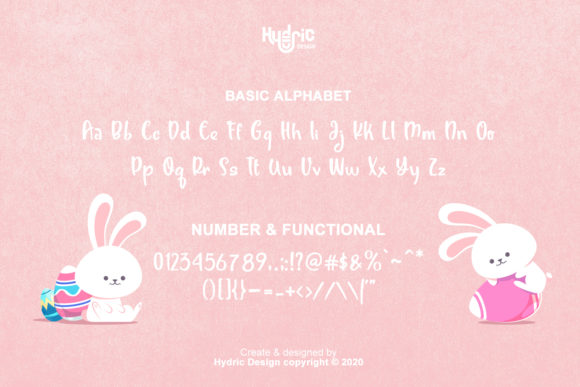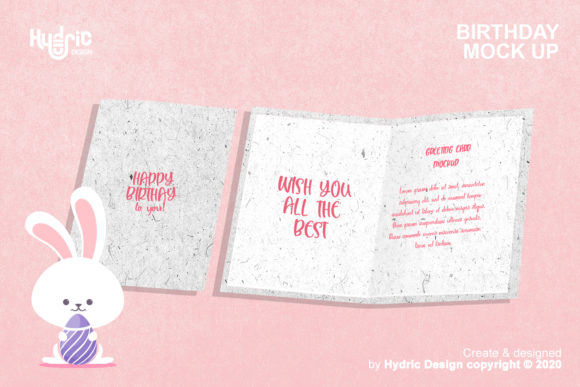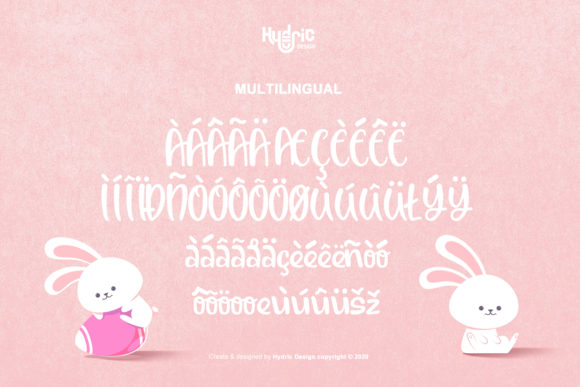
Bum Bum Bunny Font: The Sweet and Flowing Handwritten Font for Creative Projects
Are you a designer, crafter, or DIY enthusiast looking for a font that can add a touch of sweetness and elegance to your creative projects? Look no further than the Bum Bum Bunny font! This beautiful, handwritten font is perfect for a variety of applications, from Instagram posts and stories to calligraphy scripts and DIY projects. In this article, we’ll take a closer look at the Bum Bum Bunny font, its features, and how you can use it to turn your creative ideas into true pieces of art.
What is Bum Bum Bunny Font?
Bum Bum Bunny is a sweet and flowing handwritten font that is designed to add a touch of whimsy and charm to your creative projects. Its flowing lines and delicate curves make it perfect for a variety of applications, from romantic and feminine designs to playful and creative ones. Whether you’re looking for a font for your Instagram posts, a calligraphy script for your DIY projects, or a font for your branding and marketing materials, Bum Bum Bunny is an excellent choice.
Features of Bum Bum Bunny Font
The Bum Bum Bunny font has several features that make it an excellent choice for designers and crafters. Some of its key features include:
- Sweet and flowing design: The Bum Bum Bunny font has a sweet and flowing design that is perfect for creating beautiful and elegant designs.
- Handwritten style: The font has a handwritten style that gives it a personal and unique touch.
- Versatile: The font is versatile and can be used for a variety of applications, from Instagram posts and stories to calligraphy scripts and DIY projects.
- Elegant and whimsical: The font has an elegant and whimsical feel that makes it perfect for creating romantic and feminine designs.
How to Use Bum Bum Bunny Font
The Bum Bum Bunny font is easy to use and can be applied to a variety of creative projects. Here are some ideas for using the font:
- Instagram posts and stories: Use the Bum Bum Bunny font to add a touch of elegance and whimsy to your Instagram posts and stories.
- Calligraphy scripts: Use the font as a calligraphy script for your DIY projects, such as making beautiful hand-lettered cards and gift tags.
- Branding and marketing materials: Use the font for your branding and marketing materials, such as logos, business cards, and brochures.
- DIY projects: Use the font for your DIY projects, such as making handmade crafts, jewelry, and decorations.
Tips for Using Bum Bum Bunny Font
Here are some tips for using the Bum Bum Bunny font:
- Pair it with other fonts: Pair the Bum Bum Bunny font with other fonts to create a unique and interesting design.
- Experiment with colors: Experiment with different colors to find the one that works best with the font.
- Use it for headings and titles: Use the Bum Bum Bunny font for headings and titles to add a touch of elegance and whimsy to your designs.
- Make it your own: Don’t be afraid to make the font your own by adding your own personal touch and style.
The Bum Bum Bunny font is a beautiful and versatile font that is perfect for designers, crafters, and DIY enthusiasts. Its sweet and flowing design, handwritten style, and elegant and whimsical feel make it an excellent choice for a variety of creative projects. Whether you’re looking for a font for your Instagram posts, a calligraphy script for your DIY projects, or a font for your branding and marketing materials, the Bum Bum Bunny font is an excellent choice. So why not give it a try and see how it can help you turn your creative ideas into true pieces of art!